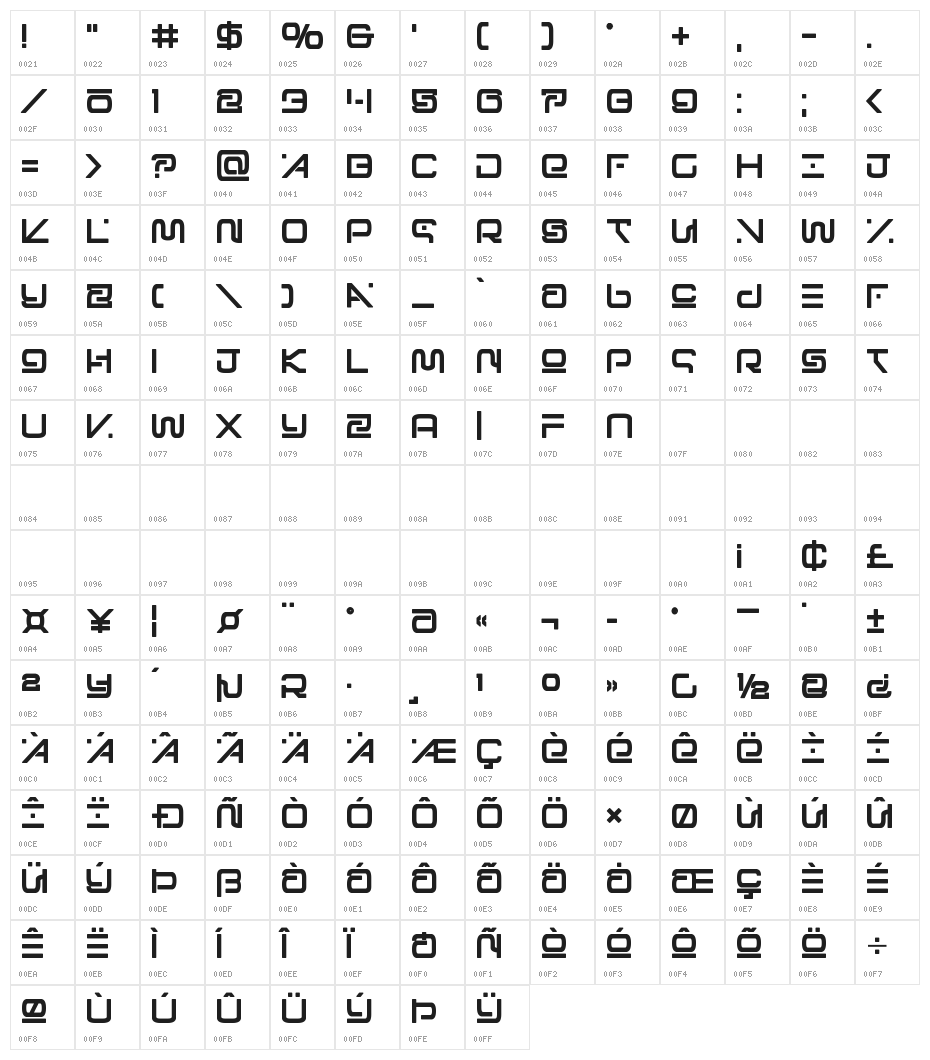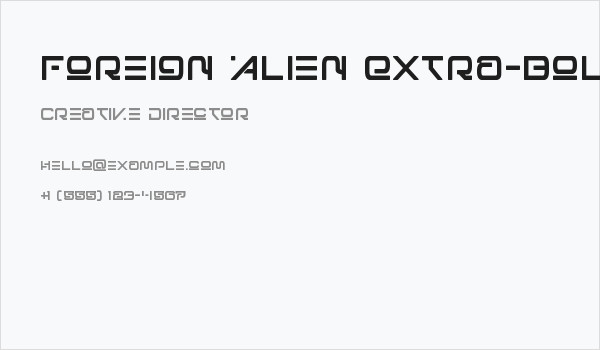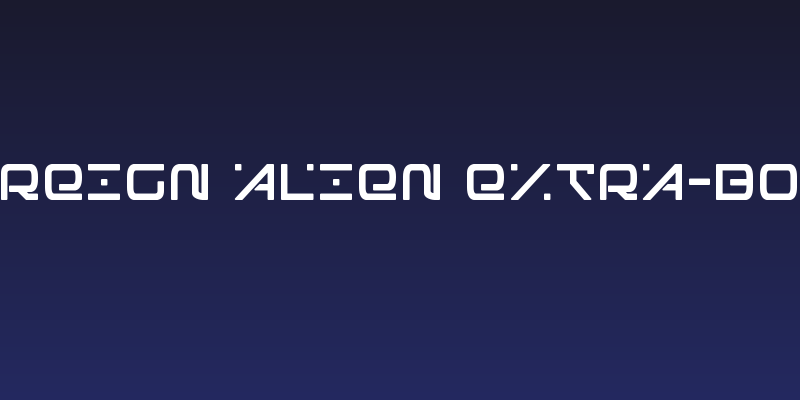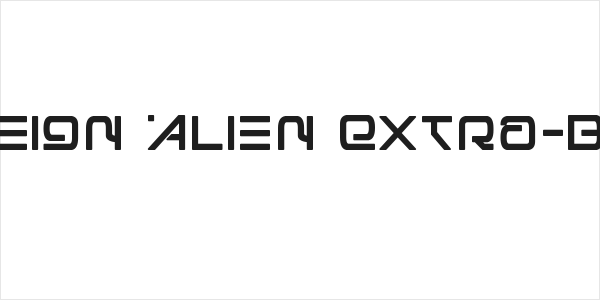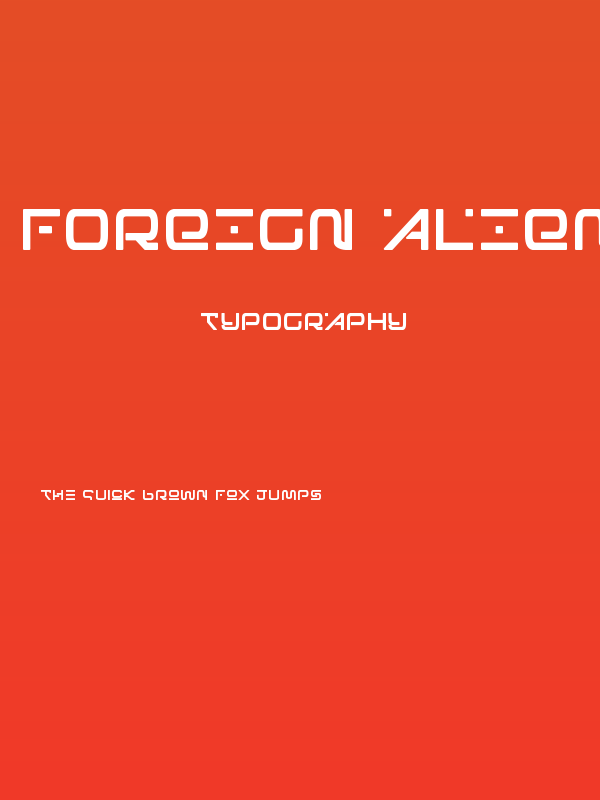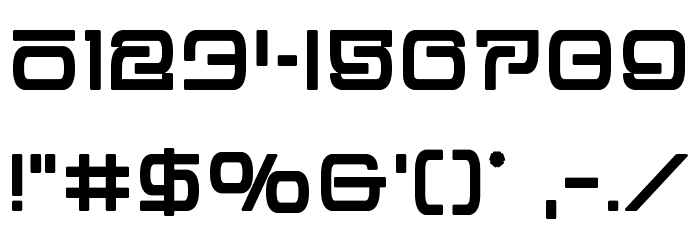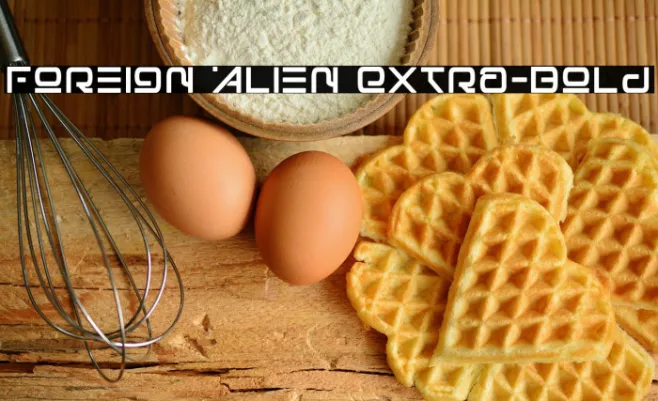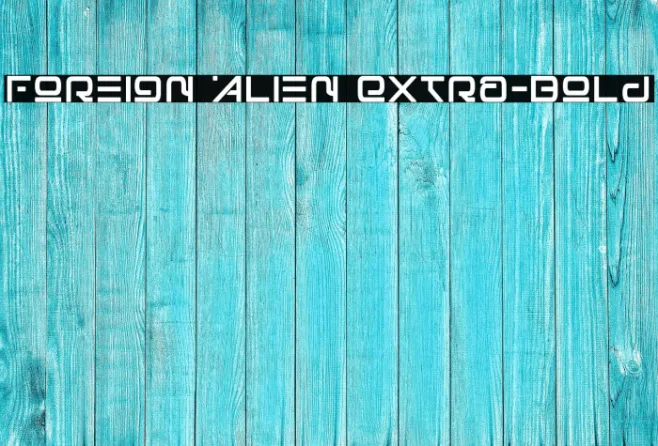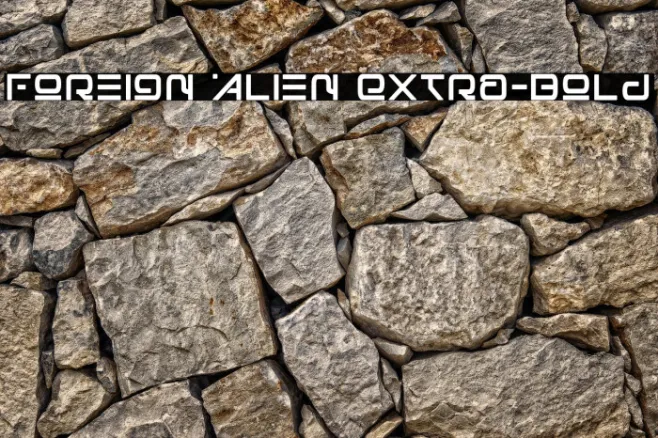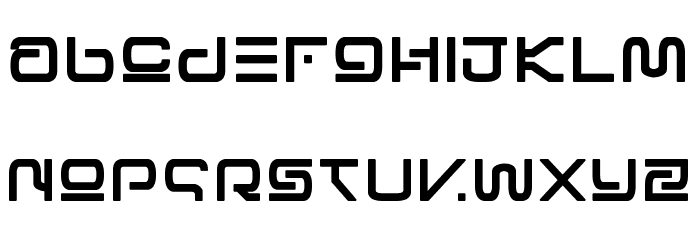
Foreign Alien Extra-Bold Font
Foreign Alien Extra-Bold Description
This font features a futuristic and geometric design, characterized by its bold and angular letterforms. The uppercase and lowercase letters share a consistent style, with sharp edges and a distinct, modern aesthetic. The numbers and special characters are designed to match the overall theme, providing a cohesive look. The font's unique style makes it stand out, with a focus on readability and impact. Its design is reminiscent of science fiction and digital interfaces, making it suitable for projects that require a modern and technological feel.
| Proposed Projects | Ideal for sci-fi themed designs, tech branding, video game interfaces, and futuristic posters. |